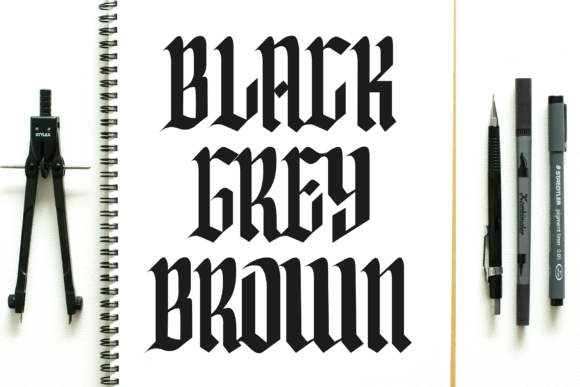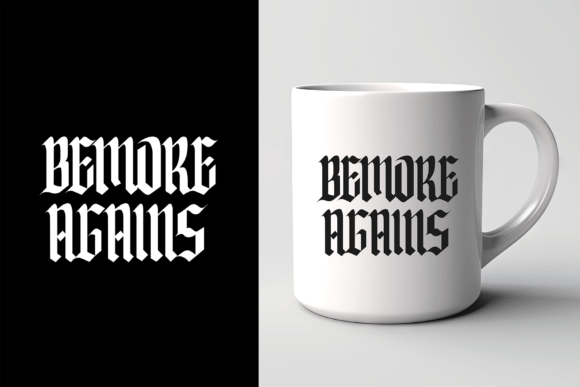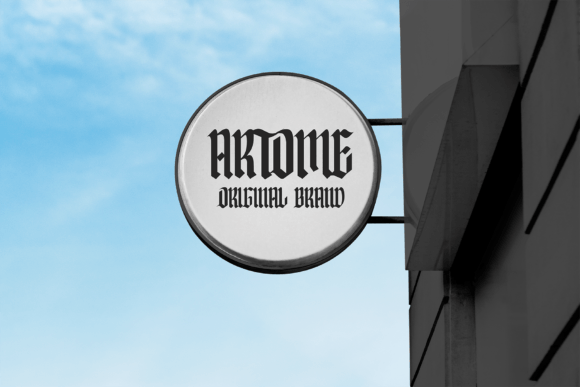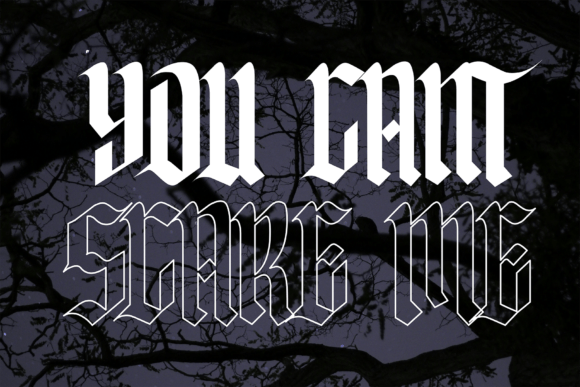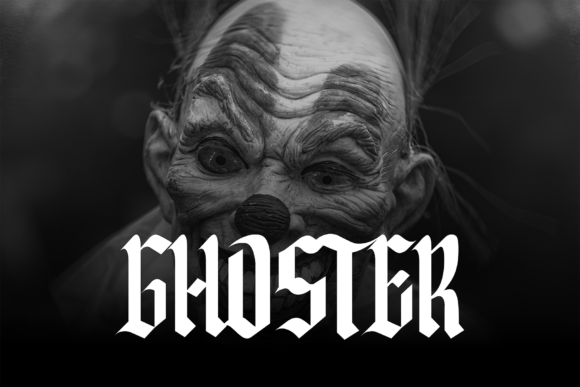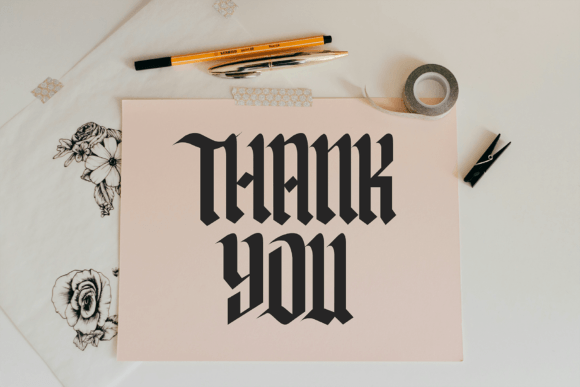
Bemore Font: A Unique Blend of Classic Elegance and Contemporary Flair
In the world of typography, fonts play a crucial role in conveying the tone and aesthetic of a design. For designers and crafters looking for a font that exudes classic elegance with a modern twist, Bemore Font is an excellent choice. This unique font seamlessly blends the timeless sophistication of blackletter gothic with a contemporary flair, making it perfect for western and Gothic-themed designs.
The Inspiration Behind Bemore Font
Bemore Font is inspired by the traditional blackletter gothic typefaces that were popular in the Middle Ages. However, unlike traditional blackletter fonts, Bemore has a more refined and elegant look, making it suitable for a wide range of design applications. The font’s creator aimed to bring back the classic charm of blackletter gothic while infusing it with a modern edge that would appeal to contemporary designers.
Key Features of Bemore Font
Bemore Font boasts several key features that make it an attractive choice for designers and crafters. Some of its notable features include:
- Unique Letterforms: Bemore’s letterforms are intricately designed with a mix of sharp and curved lines, giving the font its distinctive Gothic feel.
- Classic Elegance: The font’s classic blackletter gothic style lends an air of sophistication and elegance to any design.
- Contemporary Flair: Bemore’s modern twist makes it perfect for designers looking for a font that is both timeless and trendy.
- Western and Gothic-Themed Designs: Bemore is specifically designed to cater to western and Gothic-themed design needs, making it an excellent choice for designers working on projects with these themes.
Design Applications for Bemore Font
Bemore Font is versatile and can be used in a variety of design applications, including:
- Logos and Branding: Bemore’s unique blend of classic and modern elements makes it an excellent choice for logos and branding materials.
- Posters and Flyers: The font’s bold and elegant design makes it perfect for posters and flyers, especially those with a western or Gothic theme.
- Packaging Design: Bemore can add a touch of sophistication and elegance to packaging design, making products stand out on store shelves.
- Digital Media: The font can also be used in digital media, such as social media graphics, website headers, and more.
Tips for Using Bemore Font
To get the most out of Bemore Font, here are some tips for using it effectively in your designs:
- Pair it with Neutral Colors: Bemore’s bold design works best with neutral colors that allow the font to take center stage.
- Experiment with Sizes: The font looks great in various sizes, from large headings to smaller body text.
- Add Texture and Patterns: Adding texture and patterns to your design can enhance the font’s Gothic feel and add depth to your design.
Bemore Font is a unique and versatile font that offers a perfect blend of classic elegance and contemporary flair. Its distinctive Gothic feel and modern edge make it an excellent choice for designers and crafters working on western and Gothic-themed designs. With its wide range of design applications and tips for effective use, Bemore Font is sure to become a favorite among designers and crafters alike.